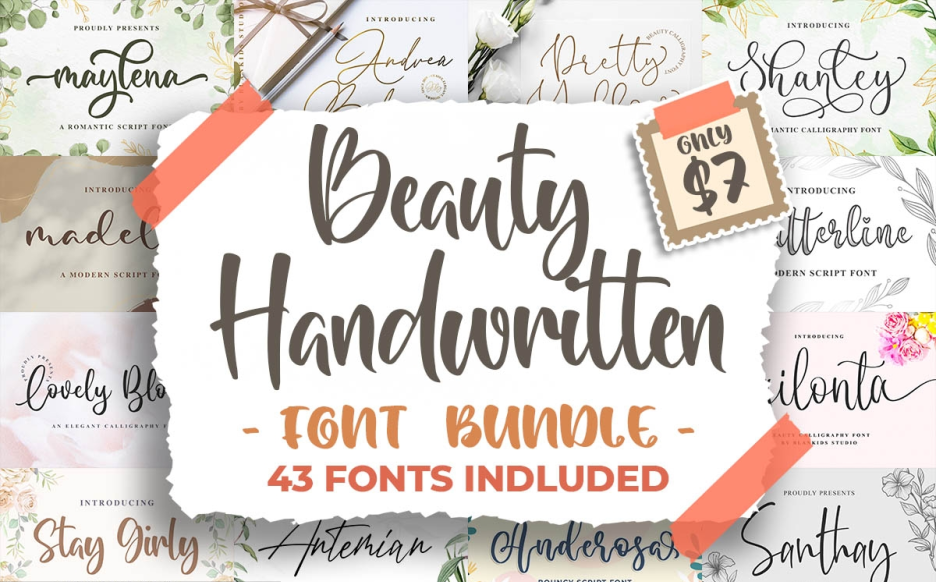
Unleash Your Creativity: brushespack Collection Part 160 Font Bundles 🎨🚀
Hey there, creative soul! ✨ Are you ready to take your design game to the next level? We’ve just uncovered the **brushespack Collection Part 160**—a treasure trove of 20 jaw-dropping font bundles that will make your projects sing! 🚀 From elegant calligraphy to playful chalk bubbles, this collection is packed with variety, value, and a whole lot of personality. Let’s dive in and find your new favorite typeface! 🎨
Why Use These Font Bundles?
Whether you’re a seasoned graphic designer or just starting your creative journey, having the right typography can make or break a project. These handpicked bundles from brushespack offer unmatched versatility, affordability, and style—perfect for branding, logos, invitations, web design, or just having fun experimenting! 🌟 Say goodbye to boring fonts and hello to a world of unique, expressive typefaces that’ll instantly elevate your work.
Top 20 brushespack Collection Part 160 Picks
Awesome Crafty Font Bundle – Vol
Get ready to get cozy with this crafty collection! 🧵 Featuring script, display, and handwritten styles, this bundle is your go-to for adding that personal, handmade touch to any design—like a warm hug for your typography! ✨
Calligraphy Font Bundles
Elevate your elegance game with these stunning calligraphy fonts! 💅 From classic swirls to modern flourishes, this bundle is perfect for branding, wedding invites, or any project that needs a touch of class. 🖋️
Calligraphy Fonts Collection – 56 Premium Fonts Worth $
Calligraphy Fonts Collection – 56 Premium Fonts
Can you say “font heaven”? 🙌 With 56 premium calligraphy fonts at your fingertips, this collection is a massive value bomb for anyone who loves beautiful lettering. Perfect for logos and high-end branding! 💎
Chalk Bubble Font 6Lceldg
Who doesn’t love a little playfulness? 🎈 This chalk-style bubble font is pure joy for kids’ projects, educational materials, or anything lighthearted. It’s fun, hand-drawn, and guaranteed to make you smile! 🤗
Entire Store Bundle – 105+ Fonts
Talk about the ultimate all-in-one! 🏆 With over 105 unique fonts spanning serifs, sans-serifs, and everything in between, this bundle is essentially your entire design toolkit wrapped in one epic package. Don’t miss out! 🚀
Dark Bundle 7 Bestseller Fonts
Feeling moody? 🖤 This dark bundle of 7 bestseller fonts is edgy, sophisticated, and versatile. Perfect for gothic vibes, modern branding, or making a bold statement that stands out! 💥
Best Collection Font Bundle
This one lives up to its name—it’s truly the best! 🌟 With serif, sans-serif, script, and display options, you’ve got everything you need to tackle any project with confidence and style. 📦
Beauty Handwritten Font Bundle
Add some authentic, personal flair with these gorgeous handwritten fonts! ✍️ They’re perfect for creating unique branding, logos, or anything that needs a touch of human warmth and elegance. 😍
70+ Signature Fonts Pack
Looking for that perfect, fancy signature look? 🔏 This pack of 70+ signature-style fonts will give your logos, branding, and personal projects an air of authenticity and class. It’s like having a personal calligrapher in your toolkit! 🖋️
90+ Awesome Fonts Collection
With over 90 fonts, this collection is an absolute beast! 🐉 From sleek sans-serifs to ornate scripts, it’s perfect for designers who want variety without breaking the bank. Get ready to be inspired! 🎨
50+ Sports Fonts Pack
Game, set, match! 🏀 Whether you’re designing for a sports team, event, or just want some bold, dynamic vibes, this pack of 50+ sports fonts will bring the energy and power you need. 🏆
22 Most Wanted Holiday Fonts Pack
Get into the festive spirit with these 22 must-have holiday fonts! 🎄 From cozy scripts to cheerful decorative styles, they’re perfect for Christmas cards, party invites, and all your seasonal projects. Spread the cheer! 🎅
April Hot Bundle
Spring into action with this sizzling April Hot Bundle! 💐 It’s loaded with high-resolution graphics, versatile templates, and awesome design elements that will make your workflow feel fresh and bright. 🌞